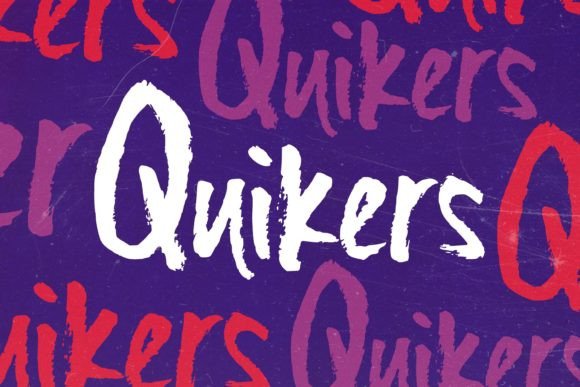
Introducing Quikers Font: The Perfect Casual Brush Font for Your Design Projects
Are you looking for a font that can add a touch of adventure and uniqueness to your design projects? Look no further than Quikers Font, a casual brush font that is made from a brush pen with a raw lettering style. In this article, we’ll explore the features and benefits of Quikers Font, and how it can be used to elevate your designs.
What is Quikers Font?
Quikers Font is a casual brush font that is designed to give your designs a unique and adventurous look. It’s made from a brush pen with a raw lettering style, which gives it a distinctive and hand-crafted feel. The font is perfect for designers who want to add a personal touch to their work, and create designs that stand out from the crowd.
Features of Quikers Font
Quikers Font has several features that make it an ideal choice for designers. Some of its key features include:
- Raw lettering style: Quikers Font has a raw lettering style that gives it a hand-crafted feel. The font is made from a brush pen, which adds a touch of imperfection and uniqueness to the letters.
- Casual and adventurous look: Quikers Font is designed to give your designs a casual and adventurous look. It’s perfect for designers who want to create designs that are relaxed and laid-back.
- High-quality design: Quikers Font is designed with high-quality in mind. The font is clear and legible, making it perfect for use in a variety of design projects.
- Versatile: Quikers Font is a versatile font that can be used in a variety of design projects, including cover design, print ads, flyers, brochures, t-shirts, and more.
Benefits of Using Quikers Font
There are several benefits to using Quikers Font in your design projects. Some of the key benefits include:
- Unique look: Quikers Font gives your designs a unique look that sets them apart from others. The font’s raw lettering style and casual look make it perfect for designers who want to create designs that stand out.
- Easy to read: Despite its casual look, Quikers Font is easy to read and clear. This makes it perfect for use in a variety of design projects, including body text and headings.
Use Cases for Quikers Font
Quikers Font is a versatile font that can be used in a variety of design projects. Some of the most popular use cases for the font include:
- Cover design: Quikers Font is perfect for cover design, including book covers, magazine covers, and album covers. The font’s casual and adventurous look makes it ideal for designs that want to convey a sense of excitement and energy.
- Print ads: Quikers Font can be used in print ads to add a touch of uniqueness and personality. The font is perfect for ads that want to stand out and grab the reader’s attention.
- Flyers and brochures: Quikers Font can be used in flyers and brochures to add a touch of casualness and adventure. The font is perfect for designs that want to convey a sense of fun and excitement.
- T-shirts and apparel: Quikers Font can be used on t-shirts and apparel to add a touch of personality and uniqueness. The font is perfect for designs that want to stand out and make a statement.
Tips for Using Quikers Font
Here are some tips for using Quikers Font in your design projects:
- Use it sparingly: Quikers Font is a bold font that can be overwhelming if used too much. Use it sparingly to add a touch of uniqueness and personality to your designs.
- Pair it with other fonts: Quikers Font can be paired with other fonts to create a unique and interesting design. Try pairing it with a sans-serif font for a bold and modern look.
- Experiment with colors: Quikers Font can be used with a variety of colors to create a unique and eye-catching design. Experiment with different colors to find the one that works best for your design.
- Pay attention to legibility: Quikers Font is a casual font that can be difficult to read if not used correctly. Pay attention to legibility and make sure the font is clear and easy to read.
Quikers Font is a casual brush font that is perfect for designers who want to add a touch of uniqueness and adventure to their designs. The font’s raw lettering style and casual look make it ideal for a variety of design projects, including cover design, print ads, flyers, brochures, t-shirts, and more. With its high-quality design, versatility, and cost-effectiveness, Quikers Font is a great choice for designers who want to create designs that stand out from the crowd.
- What is Quikers Font?: Quikers Font is a casual brush font that is made from a brush pen with a raw lettering style.
- What is Quikers Font used for?: Quikers Font can be used in a variety of design projects, including cover design, print ads, flyers, brochures, t-shirts, and more.
- Is Quikers Font easy to read?: Yes, Quikers Font is easy to read and clear, making it perfect for use in a variety of design projects.